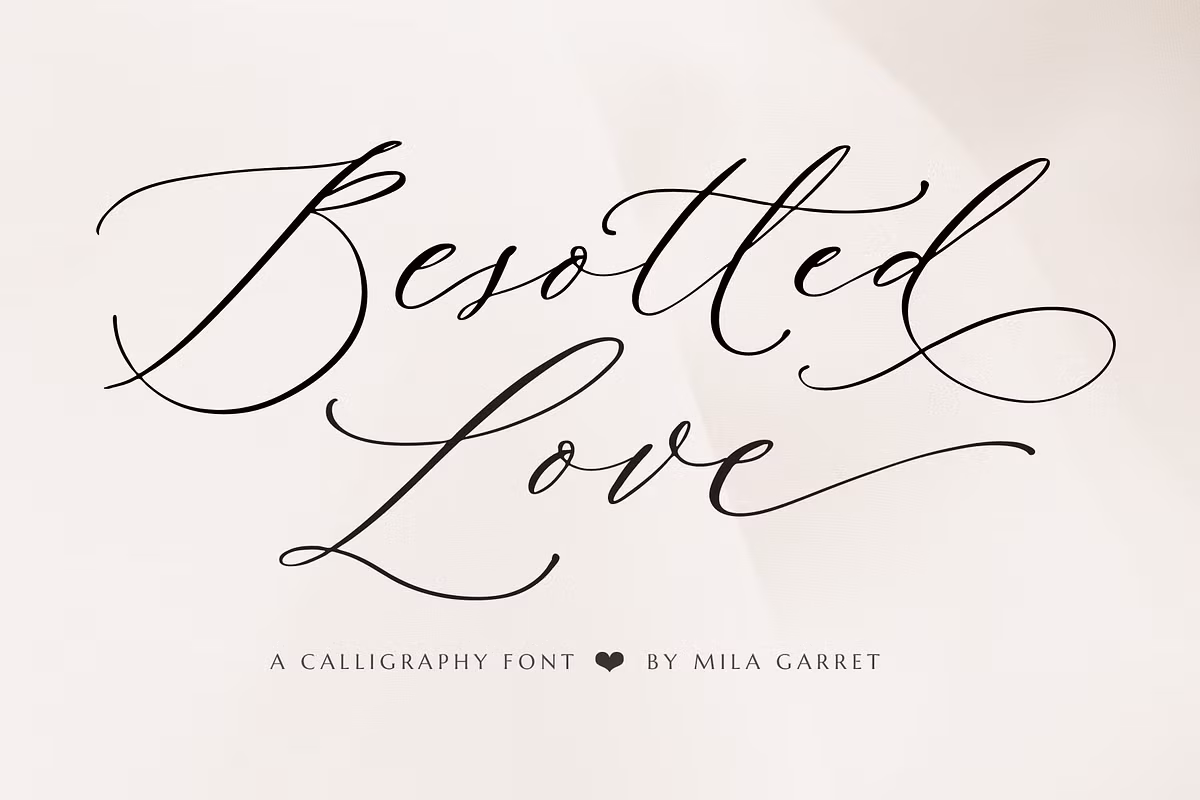
Besotted Wedding Calligraphy Font Free Download
Besotted Wedding Calligraphy Font Free Download is a luxurious, romantic script typeface designed with elegant flourishes and soft handwritten charm. Perfect for wedding invitations, event stationery, branding for bridal boutiques, and social media content, this font captures the essence of timeless romance. Its fluid strokes and graceful swashes create a dreamy and sophisticated atmosphere in any design.
Crafted for both beauty and legibility, Besotted is ideal for headlines, names, and decorative elements where style matters most. Whether you're working on a save-the-date or creating a logo with heartfelt flair, this font is a perfect fit.